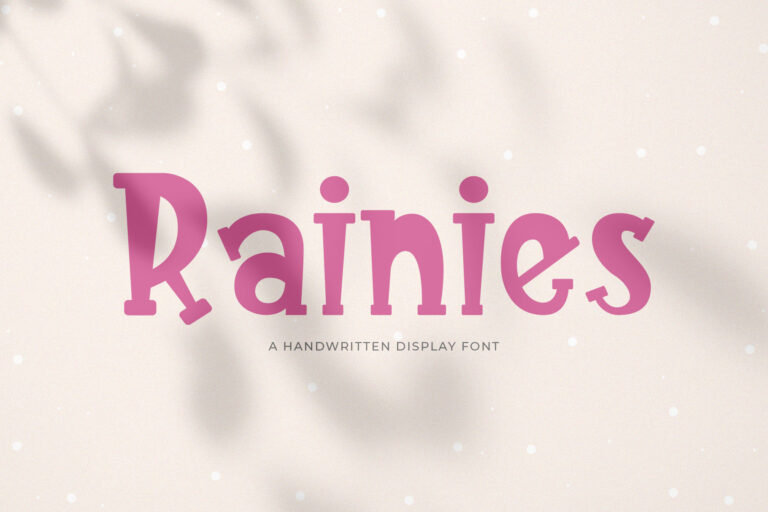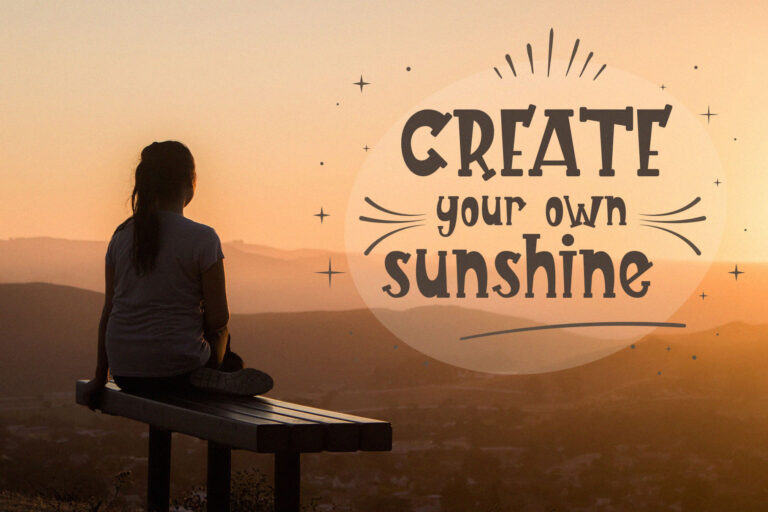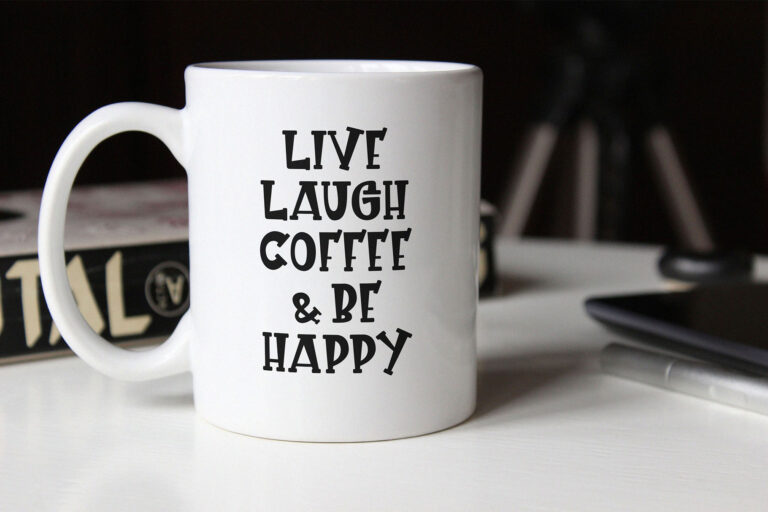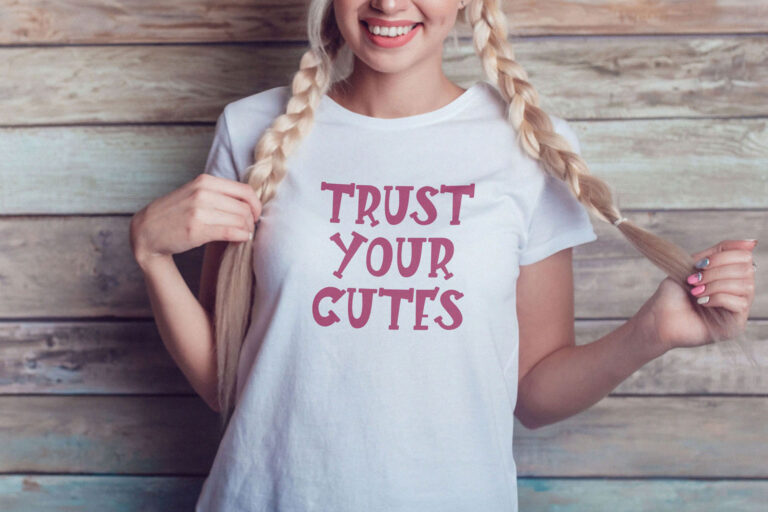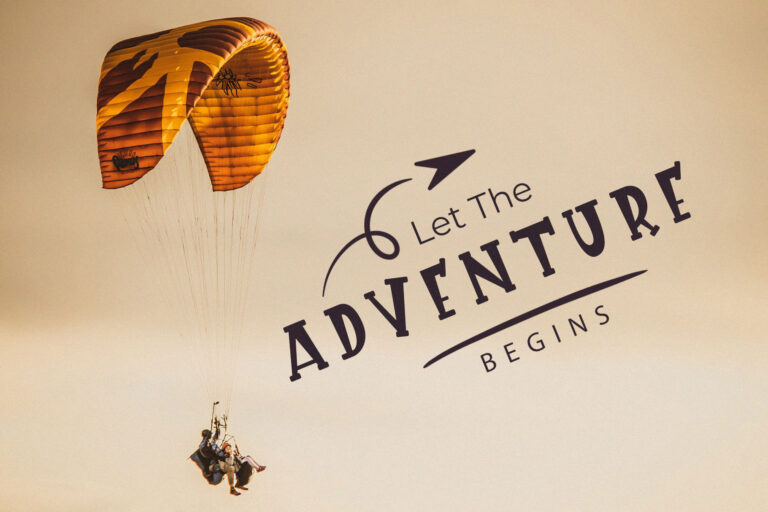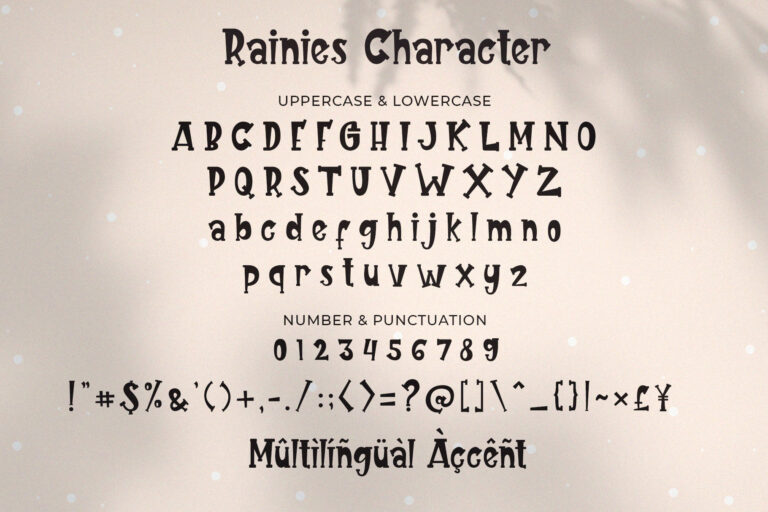
- Rainies || A Handwritten Font
Rainies is a cute, funny, sweet handwritten font. Clean and soft, this font is the perfect fit for all of your crafty DIY projects, cricut, logos, branding, social media, etc.